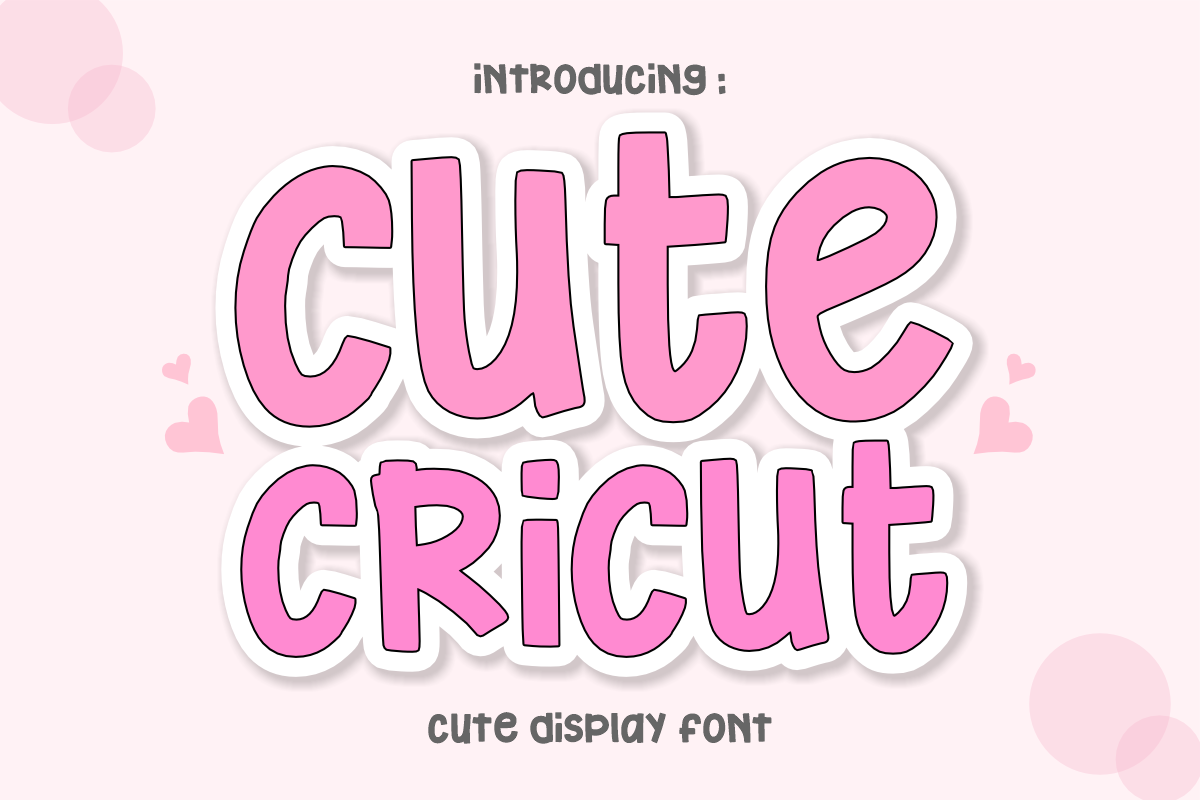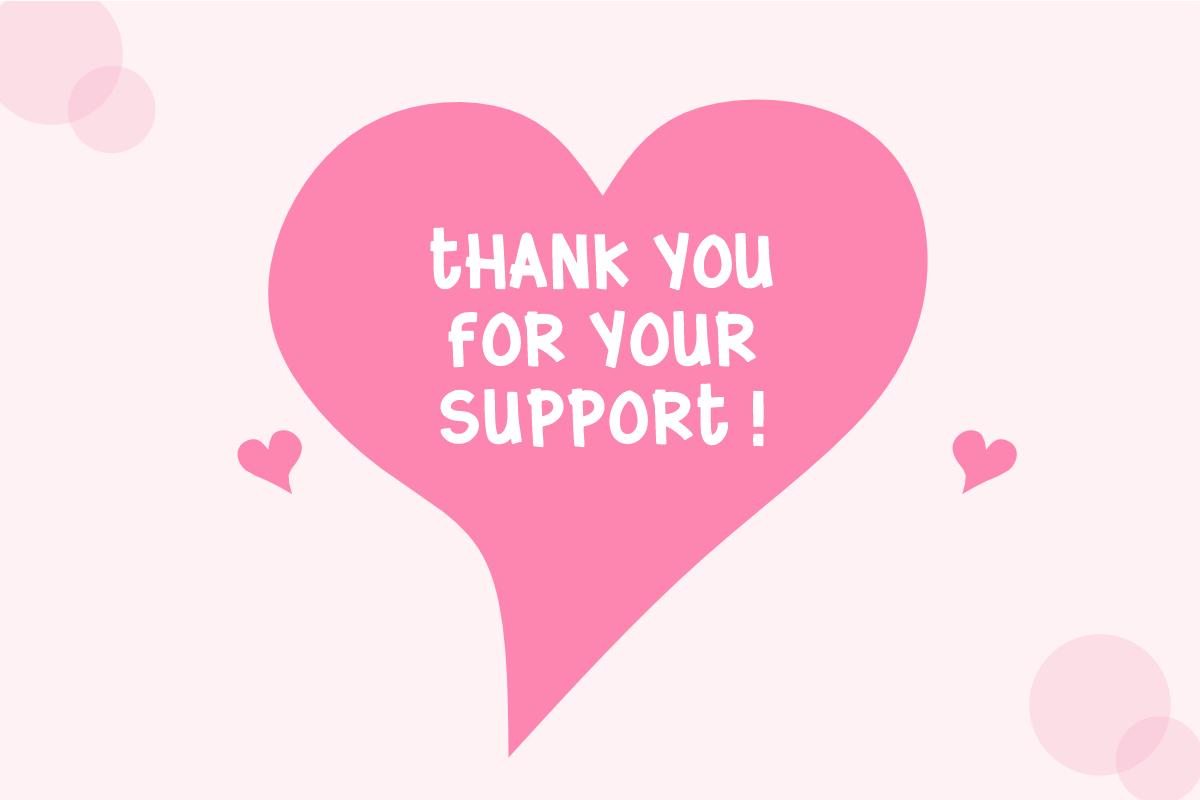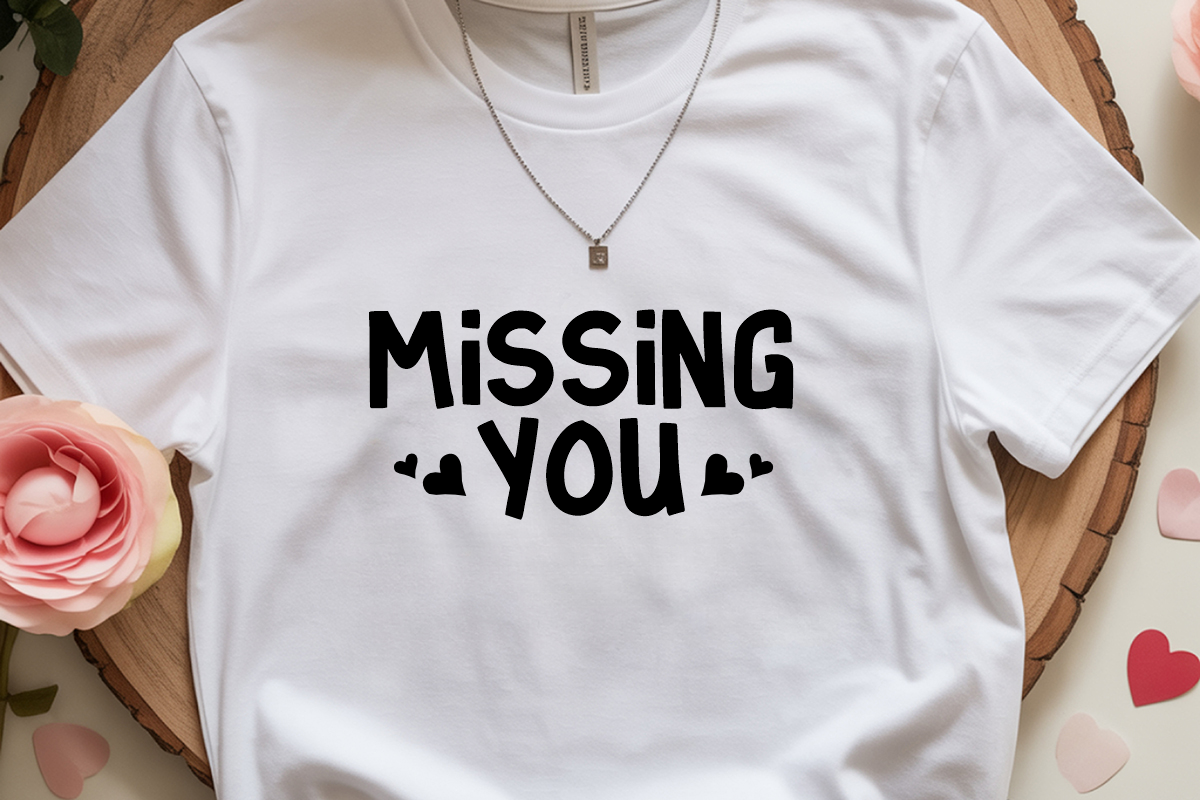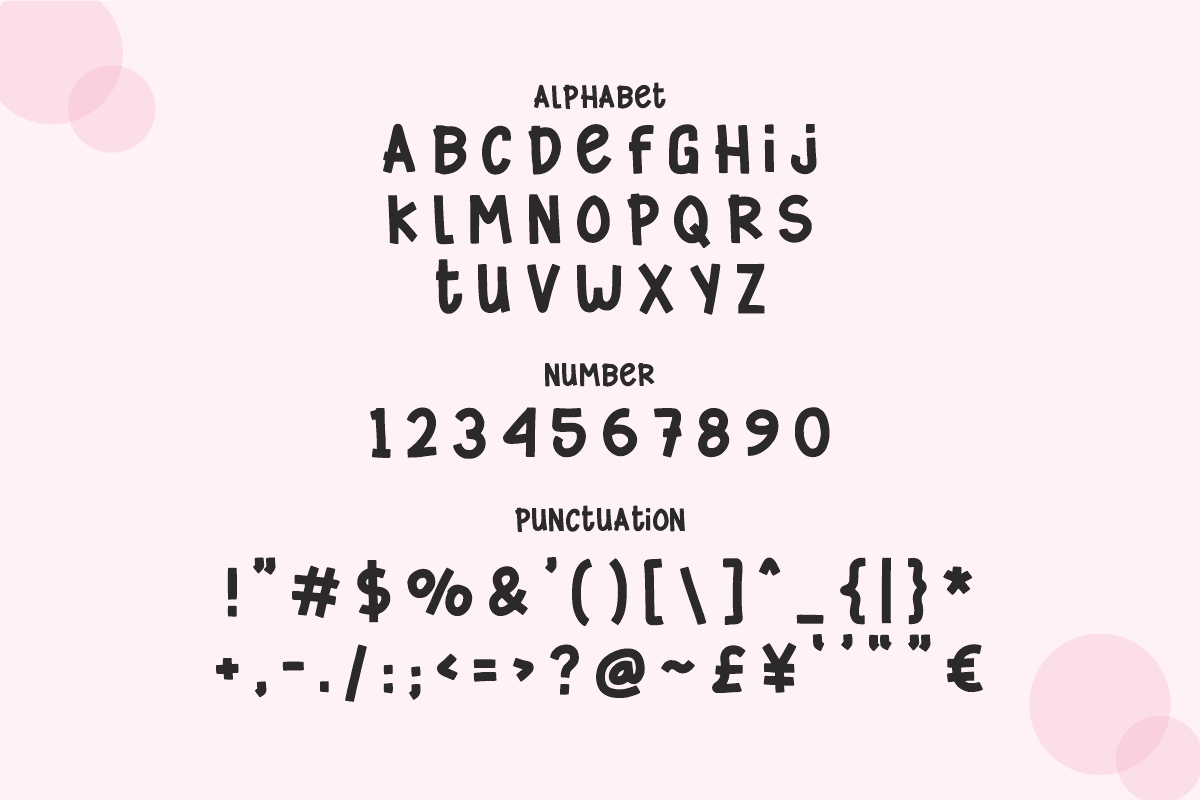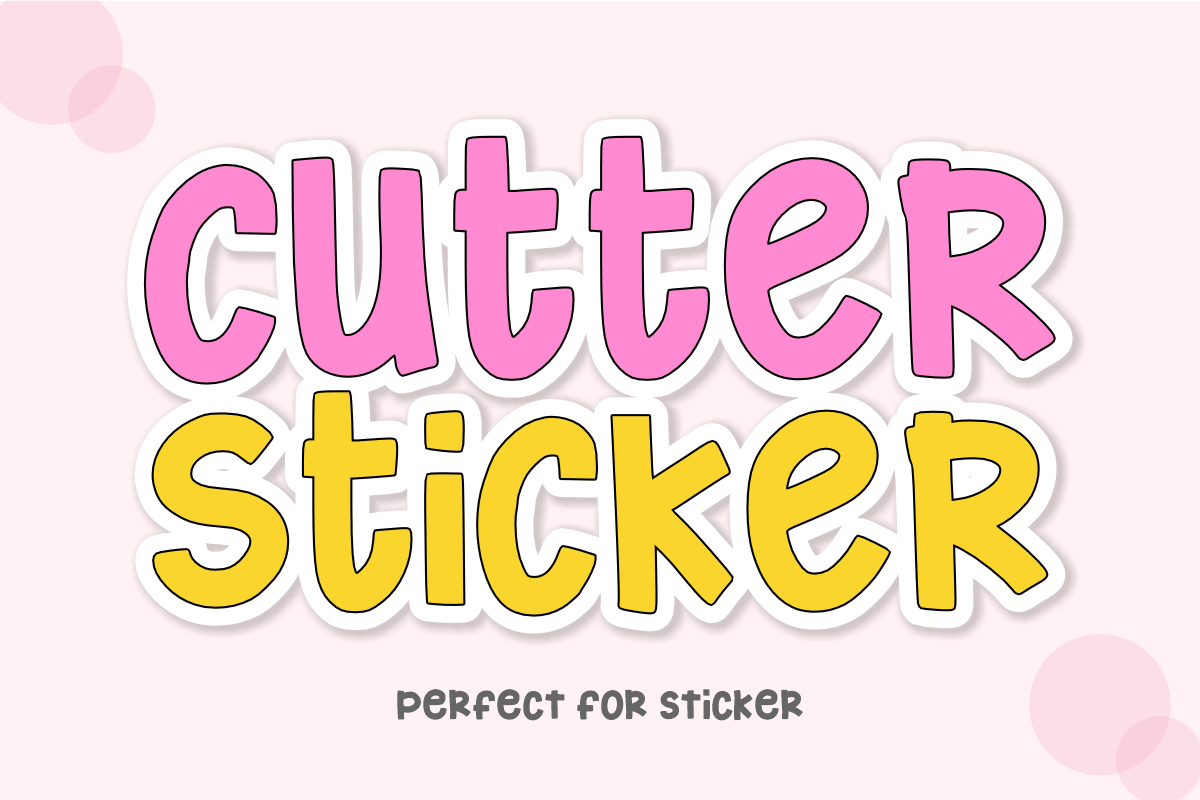
Cute Cricut - Playful Craft Font
Cute Cricut is a charming, bouncy, and sweet handwritten display font featuring soft rounded shapes and an adorable craft-ready aesthetic. Designed specifically for DIY creators, sticker lovers, and personalized gifting, this playful font adds an instant touch of joy and hand-drawn warmth to all your creative projects. Every character is cleanly vectorized to guarantee high-resolution prints and smooth, effortless cutting on Cricut and Silhouette machines.
Ideal For:
Cricut, Silhouette, and HTV vinyl cutting projects for custom t-shirts, tote bags, ceramic mugs, and tumbler wraps
Custom die-cut sticker packs, planner decals, laptop stickers, and digital scrapbooking layouts
Etsy sellers designing personalized gifts, birthday party invitations, greeting cards, and cute packaging labels
Teachers Pay Teachers (TpT) authors creating cheerful classroom headers, learning worksheets, and student rewards
Canva template creators making cute social media graphics, Instagram posts, and event banners
Nursery wall decor, baby shower printables, kids' room signage, and adorable lifestyle branding